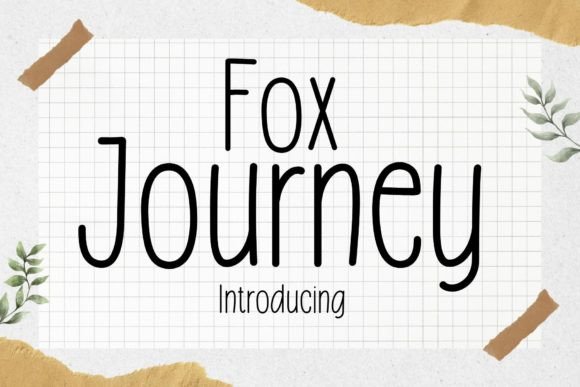
Introducing Fox Journey Font, the ultimate companion for all your creative endeavors. Created by Fox7, this sans serif font is the perfect choice for anyone looking to elevate their projects to new heights.
With its captivating charm and eye-catching appeal, Fox Journey is guaranteed to grab attention and leave a lasting impression. Its versatility knows no bounds, making it the ideal choice for a wide range of applications. Whether you're designing blog posts, branding materials, advertisements, invitations, greeting cards, planners, photo albums, decorations, or anything else your creative heart desires, Fox Journey has got you covered.
Experience the magic of handwritten simplicity blended with the modern elegance of a sans serif style. Fox Journey brings a unique touch to your designs, adding a personal and authentic feel that connects with your audience on a deeper level.
Imagine the impact of using Fox Journey in your branding materials, giving your business a professional and stylish edge. Picture the joy of receiving compliments on your beautifully designed invitations or greeting cards, all thanks to the exquisite typography of Fox Journey.
Unlock your creativity with Fox Journey Font today. Embrace the endless possibilities it offers and let your imagination run wild. Whether you're a seasoned designer or just starting out, this font is the perfect tool to bring your visions to life.